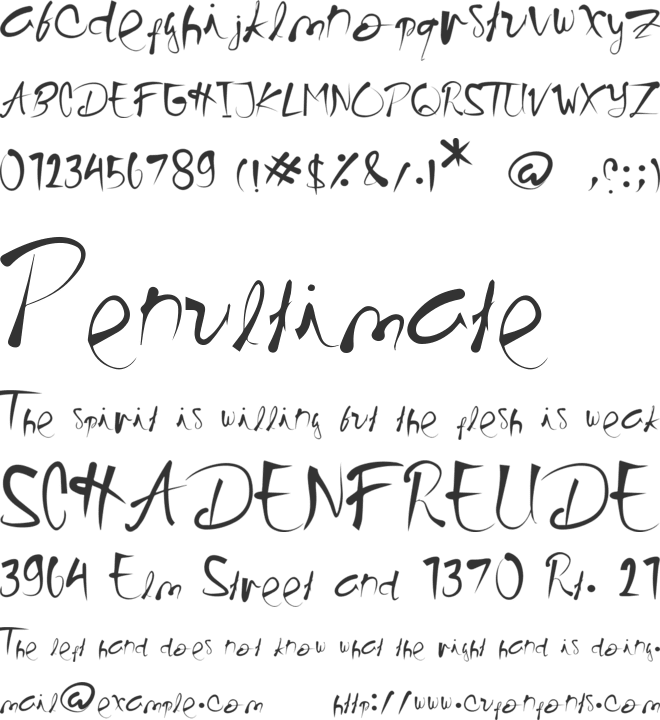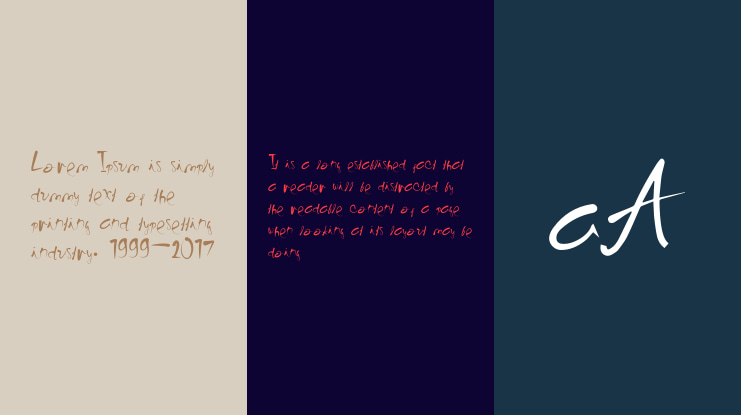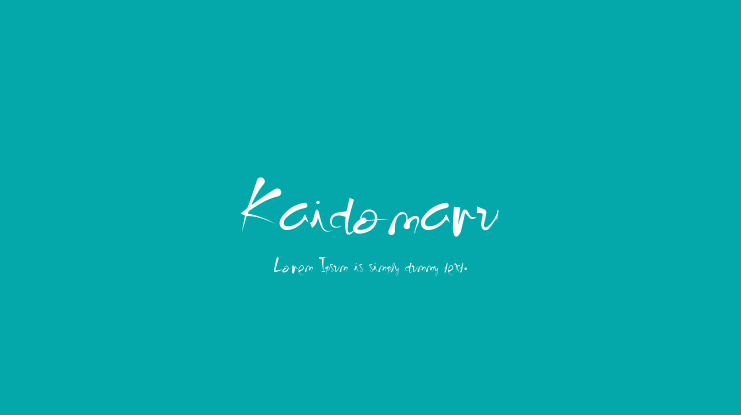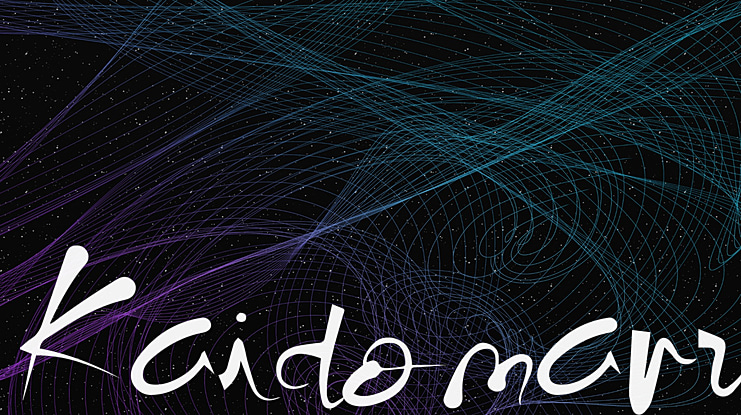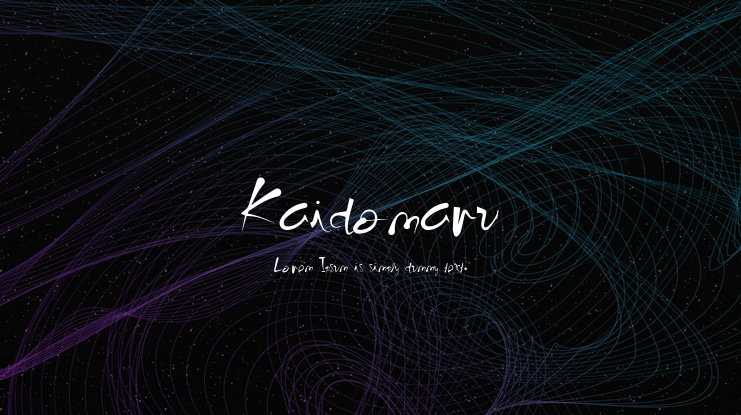
Kaidomaru Font
Kaidomaru is inspired by the authenticity of festivals in Asian culture. This brush type of font will give a thrilling sensation to your design projects. Are you ready to watch the fireworks with Kaidomaru?
Kaidomaru is an authentic brush font that suitable for variety of branding projects, logos, social media posts, advertisements, and so much more. Let your imagination run free!